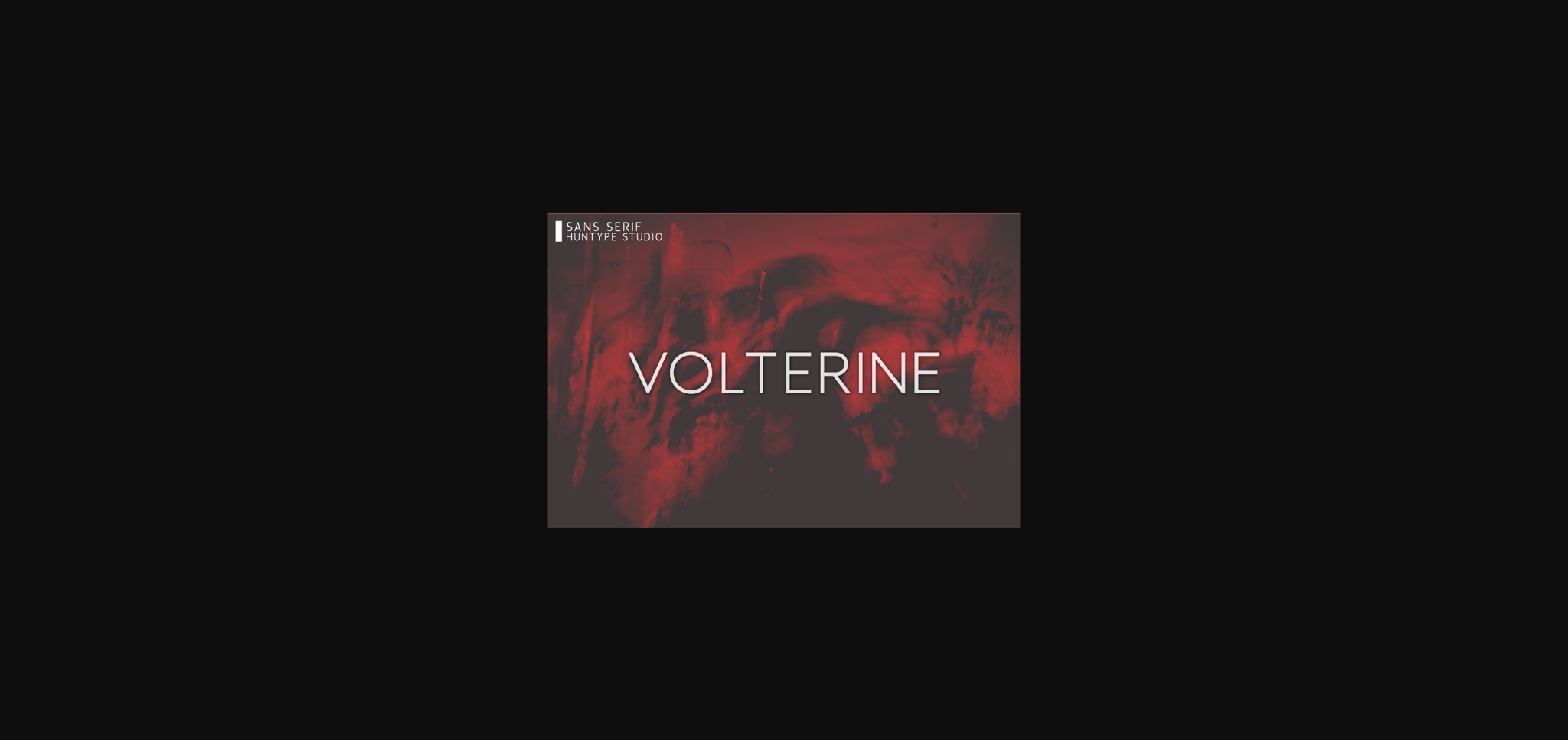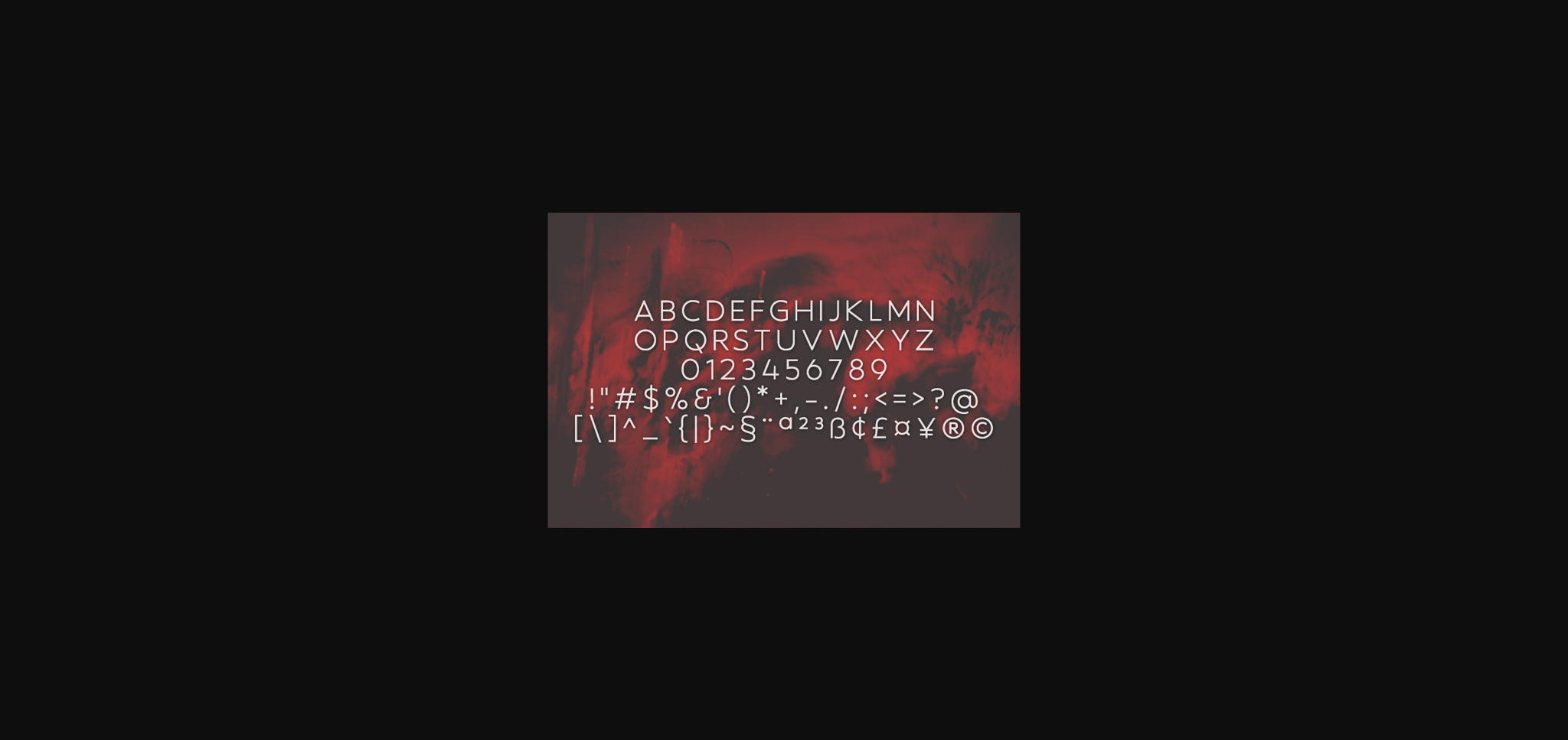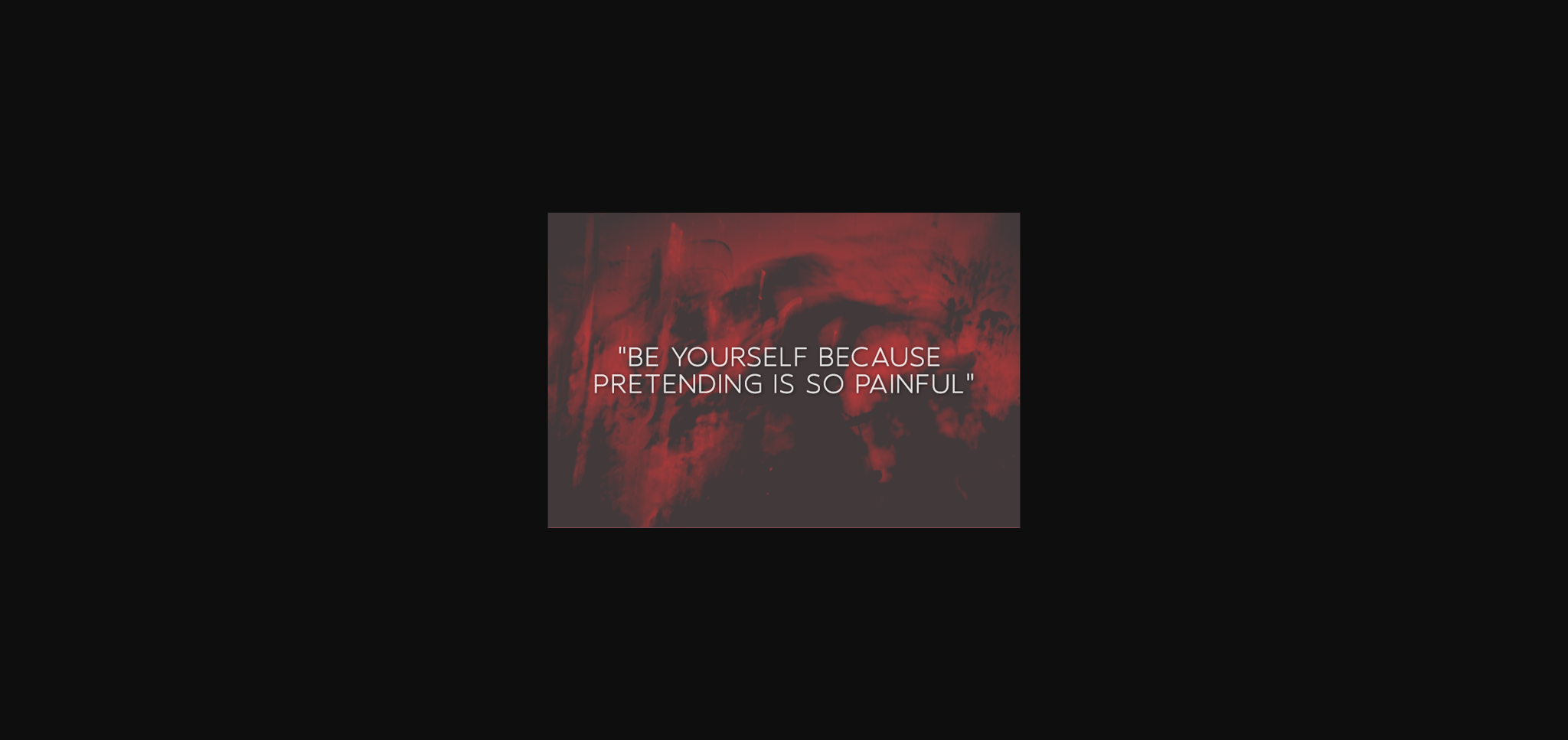
About Volterine Font
Volterine is a modern and clean sans serif font that is versatile and looks great in just about any context. With smooth and clean lines, and just a touch of contrast, Volterine works beautifully for logos, branding, web headings and much more.